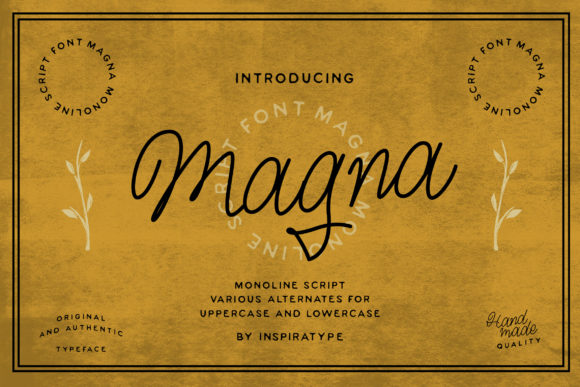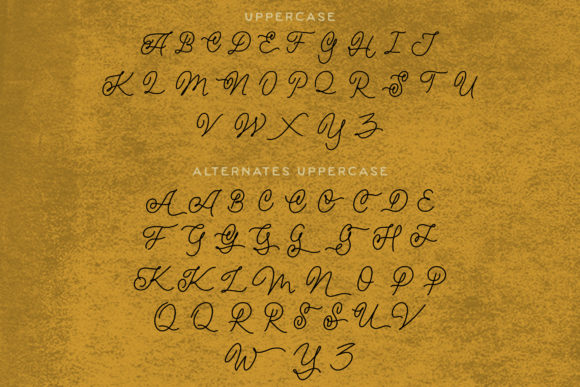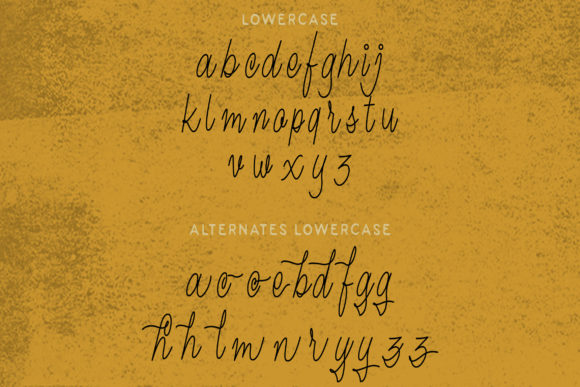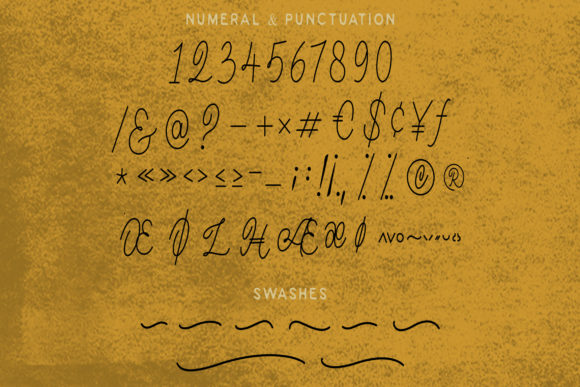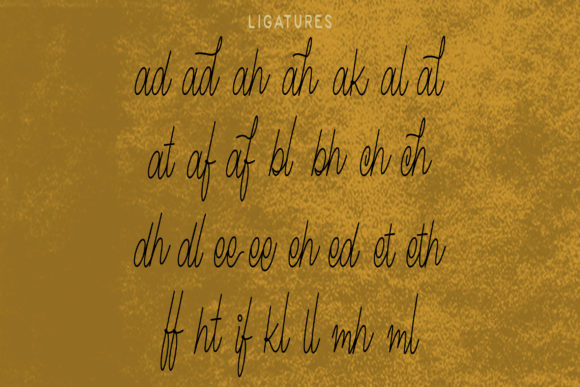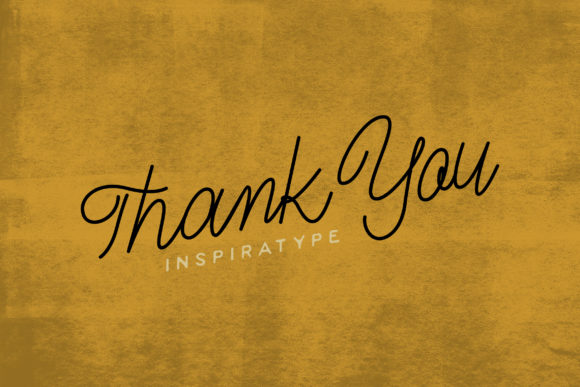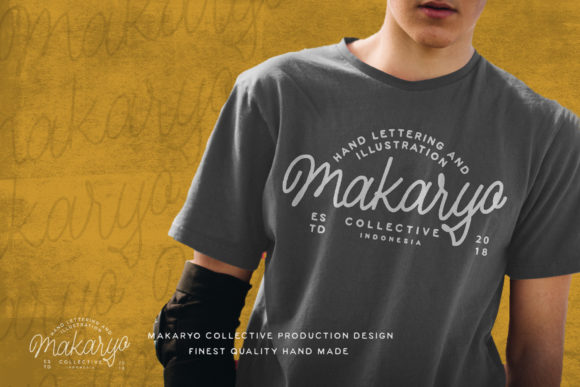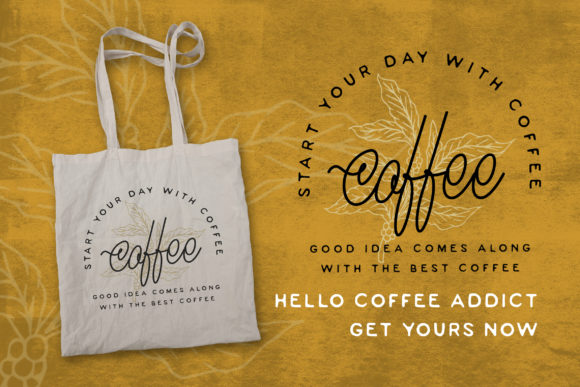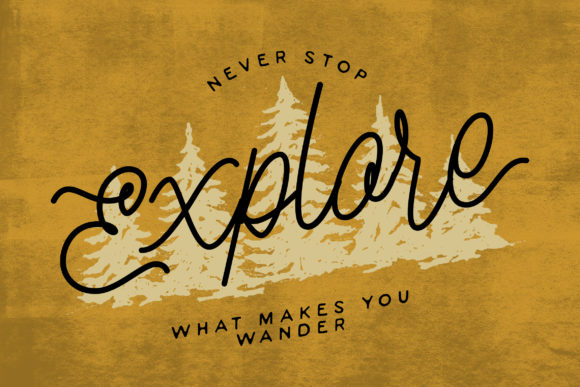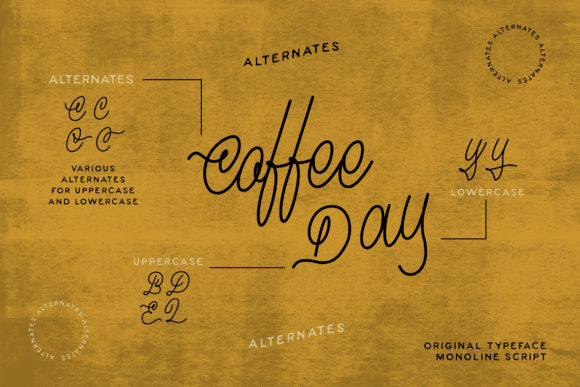
HomeScript FontsMagna Font Script Fonts Magna Font FacebookXPinterestWhatsApp Magna Font Poster 2 Magna Font Poster 3 Magna Font Poster 4 Magna Font Poster 5 Magna Font Poster 6 Magna Font Poster 7 Magna Font Poster 8 Magna Font Poster 9 Magna Font Poster 10 Magna Font Poster 11 Magna Font Poster 12 Magna Font Poster 13 Magna Font Poster 14 Magna Font Poster 15 About Magna Font Magna is an incredibly light and authentic handwritten font with a bold feel. Fall in love with its unique charm. DOWNLOAD ON CREATIVE FABRICAThis font is sold and delivered by Creative Fabrica. Font Canyon may earn a commission if you buy through this link. People also explored Golden Moment Font Alleman Font Rengok Font Coristya Font Frozdotre Cinamon Font Summer Holiday Font Florescent Font Sugar Mango Font 477 0 TagsMagna Font Previous articleBrandon Smith FontNext articleAmerican Lemon Font LEAVE A REPLY Cancel reply Comment: Please enter your comment! Name:* Please enter your name here Email:* You have entered an incorrect email address! Please enter your email address here Website: Save my name, email, and website in this browser for the next time I comment. Personal Use Free Mustica Personal Use Free Read more about this font Euphorigenic Personal Use Free Read more about this font Velasco Personal Use Free Read more about this font DoooLA Personal Use Free Read more about this font BLOG Exploring Font Trends Shaping Communication in the Digital Era Fonts, like all design elements, are subject to trends. They play a crucial role in communicating a brand's personality,... 5 Fonts That Will Dominate Design Trends in 2026 The 10 Best Handwriting Fonts to Add Personality to Your Designs How to Install and Use Fonts on Windows, macOS, and Web Projects